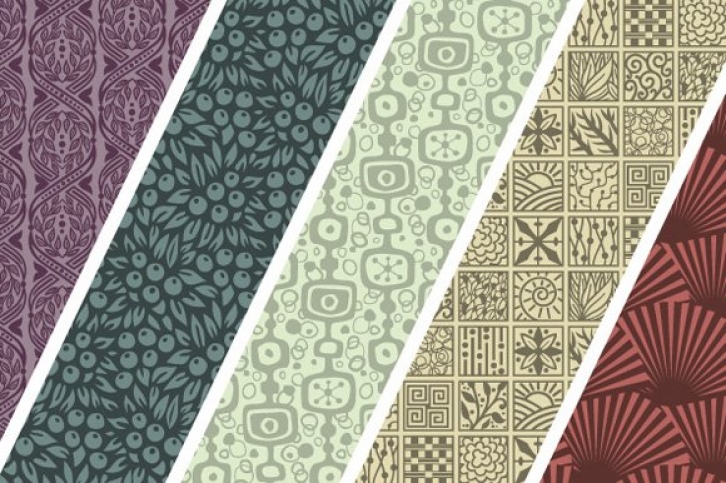
26 unique hand drawn wallpaper tiles and 34 accompanying icons. This font can be used as icons, borders, and/or wallpaper patterns.
Wallflowers are very easy to use, for borders or wallpaper, simply type the same letter consecutively (for example: aaaa or bbbb, et cetera) and voila! The pattern will emerge. Refer to the Users Guide included with your download for further instruction and to view the patterns included.